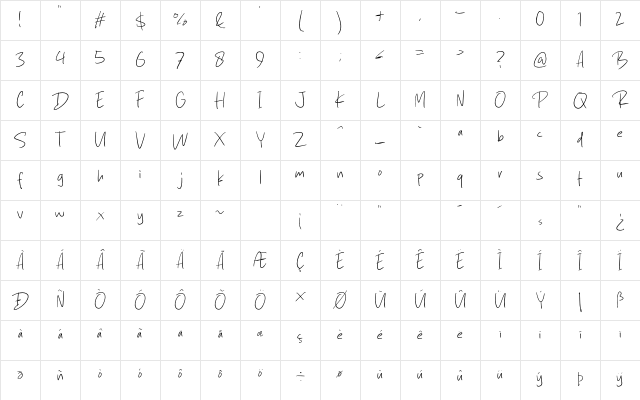
Rockscript Regular
Design Context for Rockscript
Rockscript flows with the natural rhythm of handwritten lettering, making it ideal for designs that call for warmth and personal expression.
Font Pairing: Combine Rockscript with a simple geometric sans for maximum contrast - the tension between flowing curves and clean structure is a classic typographic pairing.
Pro Tip: Use Rockscript for short runs of text - names, titles, or taglines. Extended body copy in script faces tires the eye quickly.